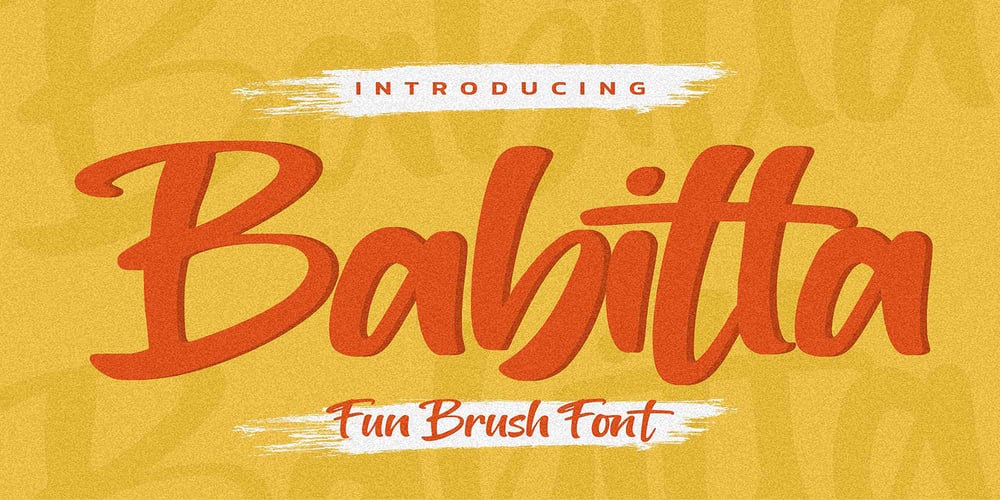
Babitta
Babitta font
Babitta Font Family was designed by Abdul Malik Wisnu, Anang Fibriyanto and published by Gassstype. Babitta contains 1 styles and family package options. Hello Everyone, introduce our new product Font Babitta This Is Fun Brush Font.This is a Textured Natural Style and classy style with a clear style and dramatic movement.You can activate 23 Ligatures and 4 Alternate glyphs OpenType panel.